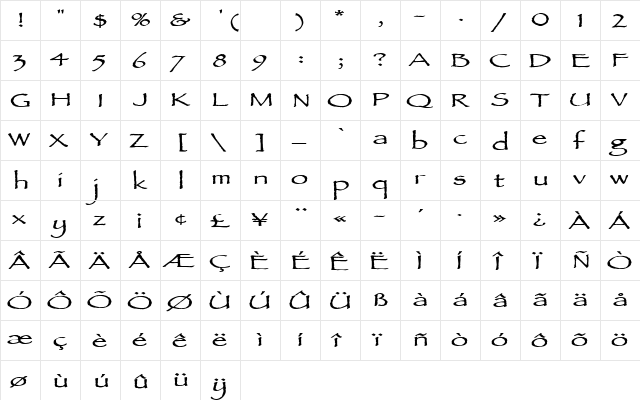
AncientScriptExtended Regular Font Preview
AncientScriptExtended Regular
AncientScriptExtended Regular Font Details
Design Context for AncientScriptExtended Typeface
AncientScriptExtended flows with the natural rhythm of handwritten lettering, making it ideal for designs that call for warmth and personal expression.
Font Pairing: Combine AncientScriptExtended with a simple geometric sans for maximum contrast — the tension between flowing curves and clean structure is a classic typographic pairing.
Pro Tip: Pair AncientScriptExtended with a clean sans-serif for supporting text. The contrast between fluid script and geometric structure creates an elegant typographic hierarchy.